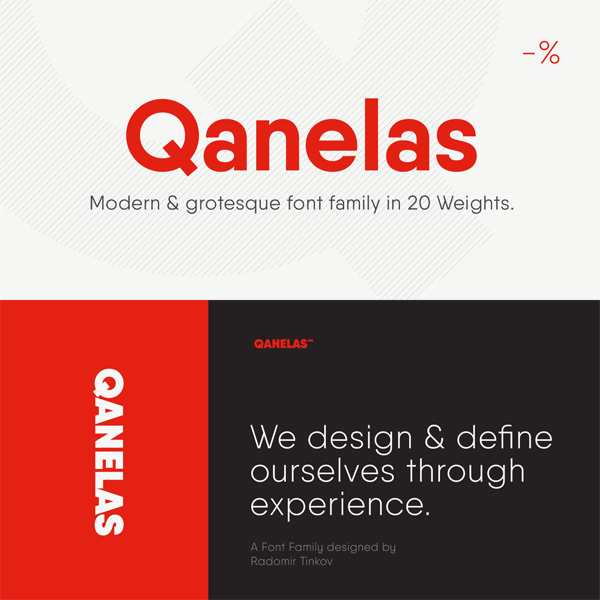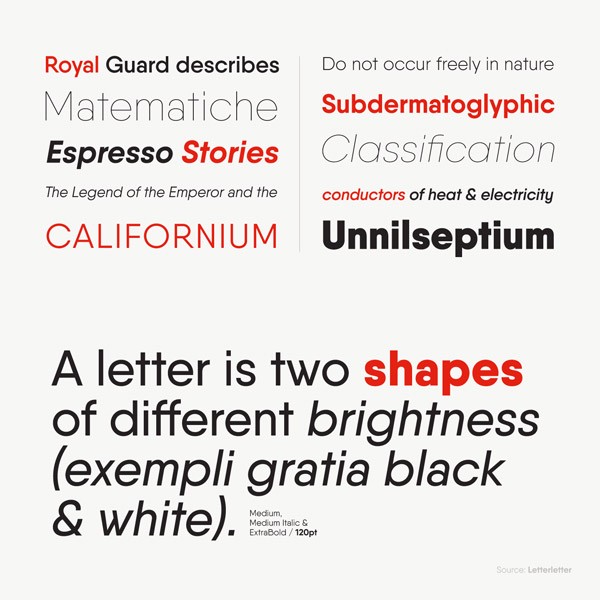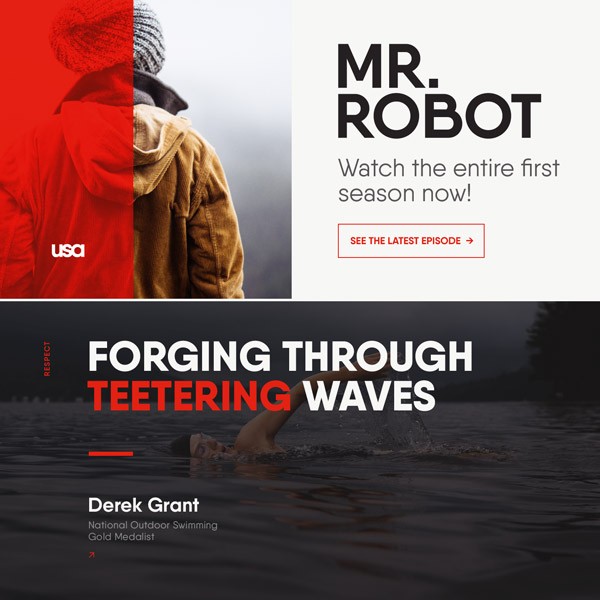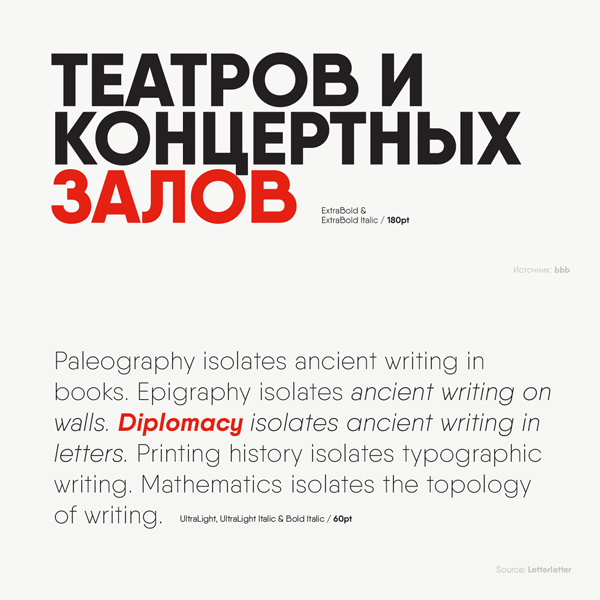
Qanelas, a modern sans serif typeface from Radomir Tinkov with a clean, geometric style.
Qanelas is a new typeface that was designed by Radomir Tinkov in 2015. It’s a modern sans serif with a strong geometric look. The family includes 20 fonts consisting of 10 weights ranging from Thin to Heavy plus matching Italic versions for each weight.
Qanelas is equipped with powerful OpenType features. Each weight comes with alternate characters, fractions, arrows, ligatures, etc. But that’s not all! The character set of this well-designed sans serif typeface supports multiple languages including Latin and Cyrillic letters. Qanelas’ design looks straight to the point. It’s well suited for graphic design and any display use. This sans serif type family is a great fit for web, signage, branding, and editorial design. You can get Qanelas as both desktop font and webfont. For more details, just follow the link below.